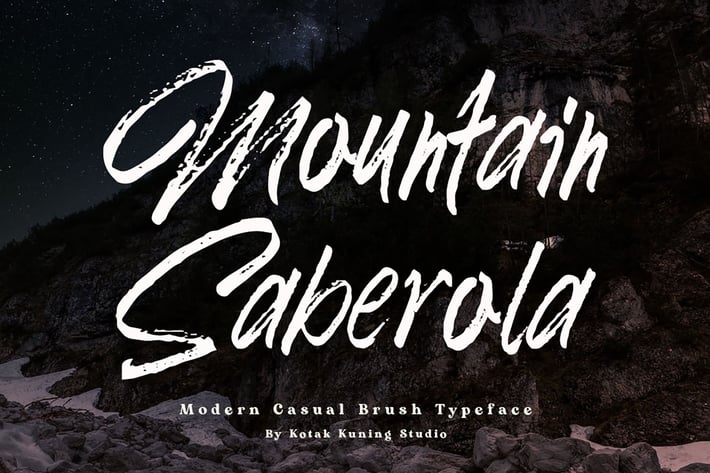
Mountain Saberola Brush Font
Introducing my new font Mountain Saberola Font. Handwritten display font that was created with a dry brush which gives more personal touch and makes the font looks being customized.
This font is suitable to use as a logotype, product designs, label, watermark, social media posts, apparel, invitation, signboard, sports club, motor/car, special events, or anything that needs handwriting taste.